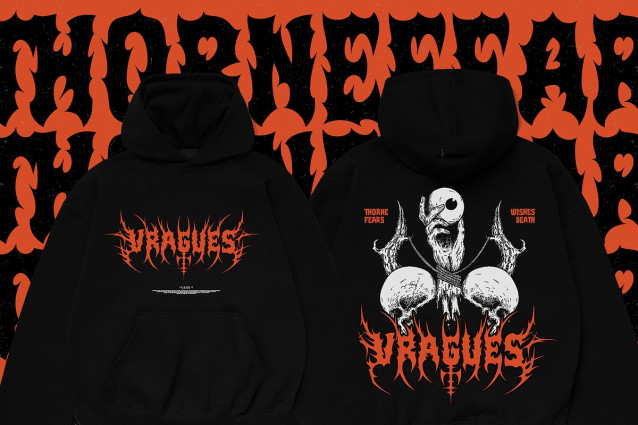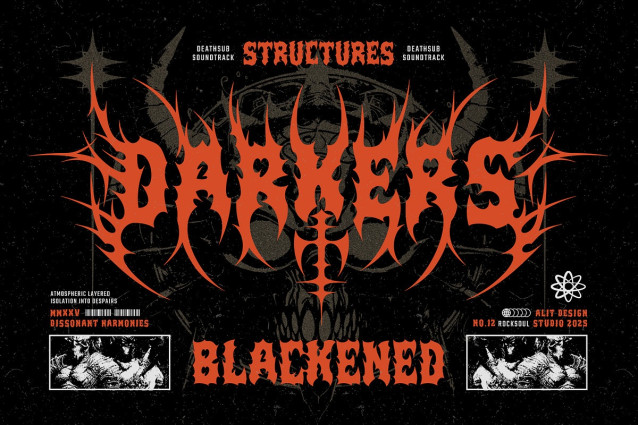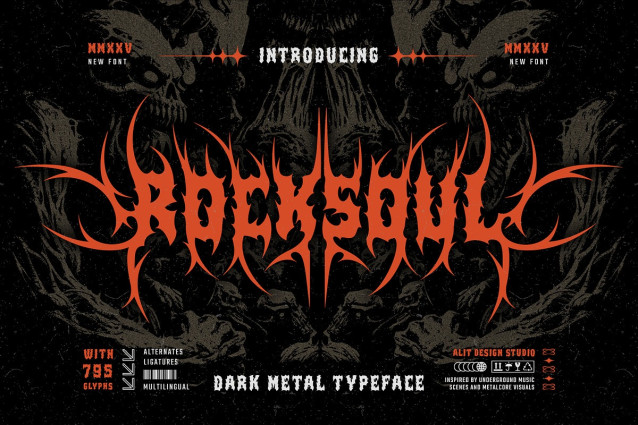
Rocksoul Font
Rocksoul Font — a brutal, high-impact display font forged for the world of underground music, extreme visuals, and fearless design. Created to echo the spirit of heavy metal, hardcore, and metalcore culture, Rocksoul is more than just a typeface — it’s a statement.
This font embodies a fat-bodied structure merged with sharp, piercing thorn-like extensions, creating a fierce, aggressive impression at first glance. Each letter feels alive — shaped by the dark aesthetic of underground gig posters, rebellious band merchandise, and metal album art.
💡 Design Concept Rocksoul was born from the fusion of modern dark art and traditional metal typography. The spiky, thorn-wrapped forms mirror the wild energy of underground soundscapes, while the balanced, bold shapes ensure clarity and impact in any layout.
One of the standout features is the symmetrical alternates designed for the beginning, middle, and ending positions of a word. This clever symmetry allows for powerful, mirror-like text arrangements that feel structured, sharp, and harmonious, even amidst the chaos of sharp details.